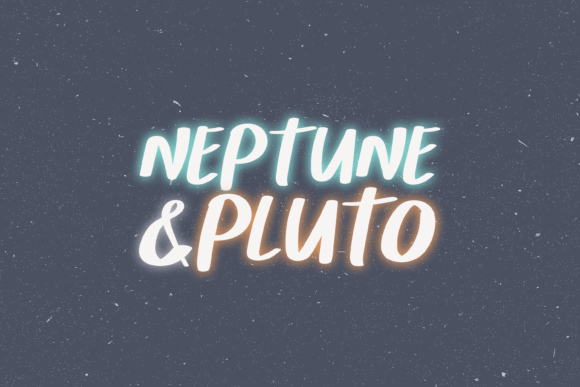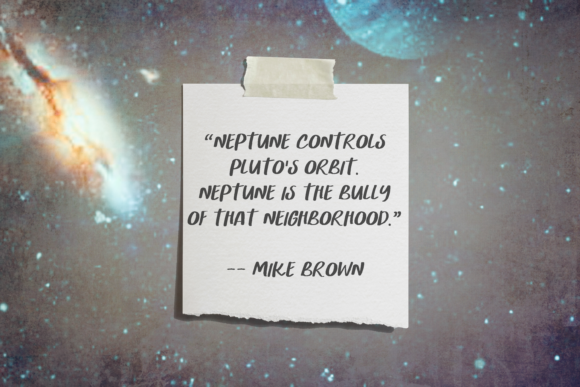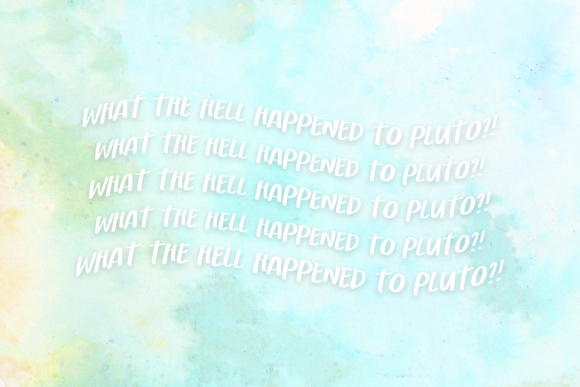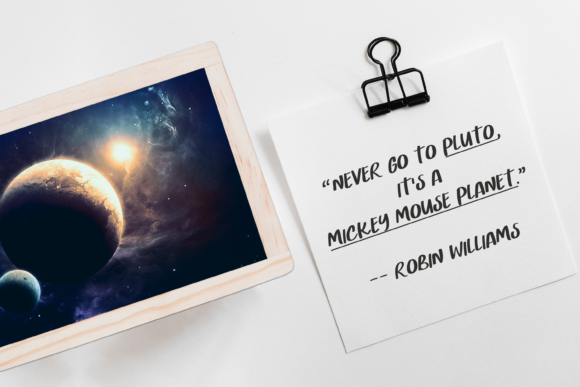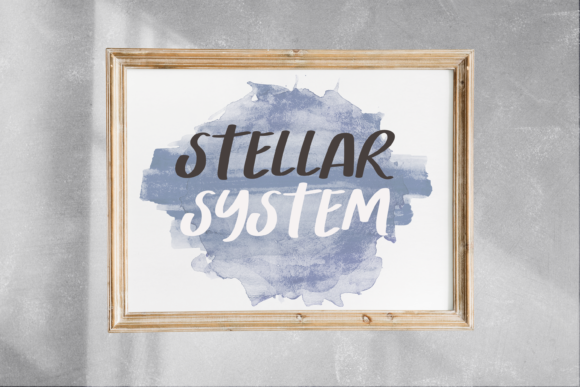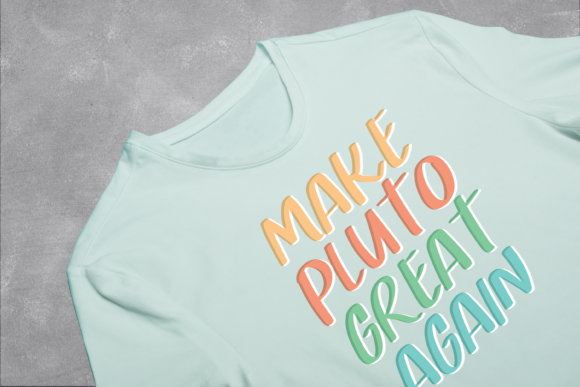
Neptune & Pluto Font
About Neptune & Pluto Font
Neptune & Pluto is a charming & sweet handwritten font. Get inspired by its incredibly casual feel. Use this font to turn any design project into a standout!